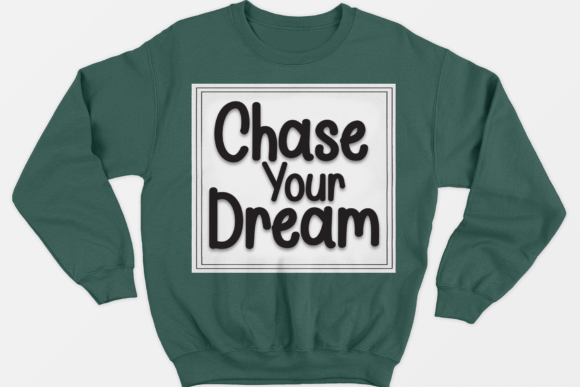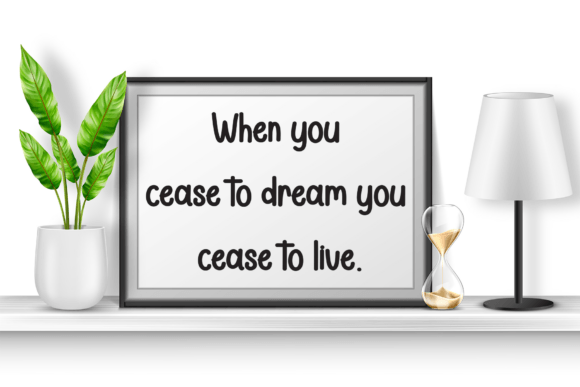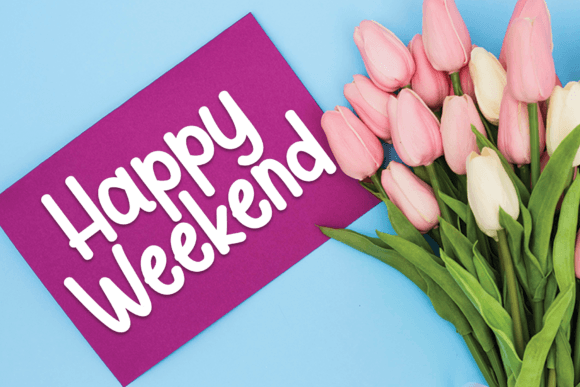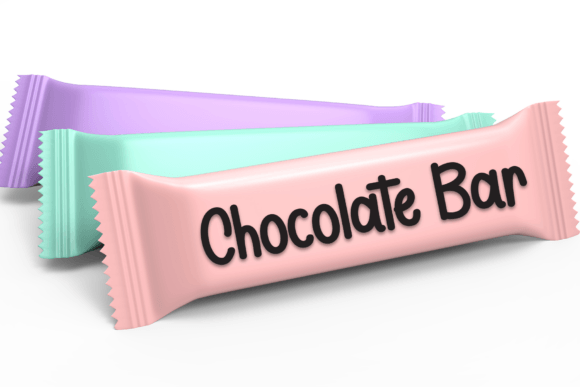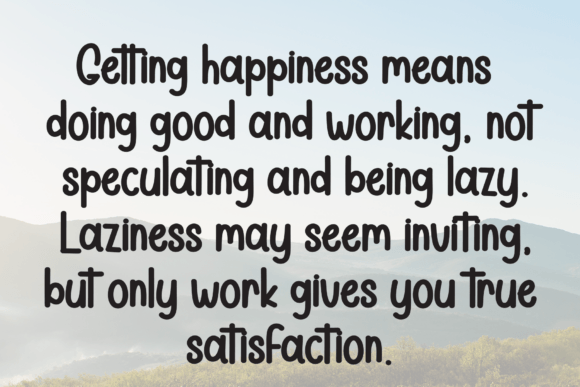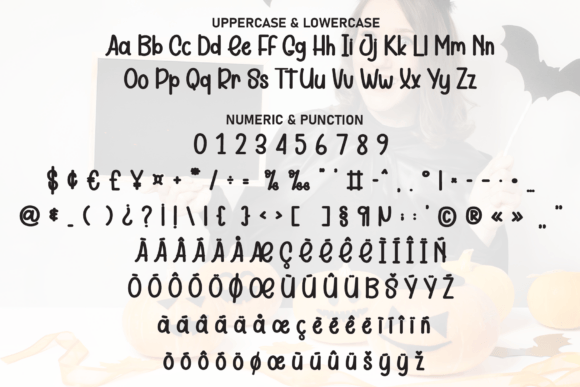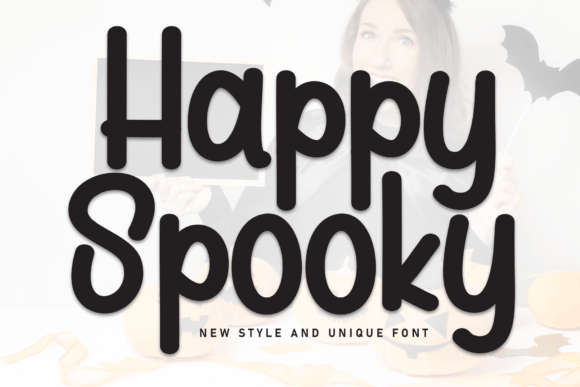
Introducing Happy Spooky Font: The Ultimate Addition to Your Design Arsenal
Are you tired of using the same old fonts for your wedding invitations, card crafting, and other creative projects? Look no further! We’re thrilled to introduce Happy Spooky Font, a charming and jovial handwritten display font that’s about to take your designs to the next level. Steeped in sweetness and friendliness, this font is the perfect addition to your design arsenal, adding a delightful touch that effortlessly personalizes and brings your creative visions to life.
The Personality of Happy Spooky Font
Happy Spooky Font is more than just a font – it’s a personality. It’s the embodiment of joy, whimsy, and playfulness, making it perfect for designers and crafters who want to add a touch of magic to their creations. This font exudes warmth and friendliness, making it an ideal choice for wedding invitations, baby shower cards, and other special occasions. With Happy Spooky Font, you can create designs that are not only visually stunning but also emotionally resonant.
Perfect for Wedding Invitations and Card Crafting
Wedding invitations and card crafting require a special kind of font – one that’s both elegant and playful. Happy Spooky Font fits the bill perfectly. Its handwritten display style adds a touch of whimsy and romance to any design, making it perfect for wedding invitations, save-the-date cards, and other wedding-related stationery. Additionally, its friendly and approachable personality makes it an excellent choice for card crafting, allowing you to create unique and personalized cards for any occasion.
Bringing Your Creative Visions to Life
Happy Spooky Font is more than just a font – it’s a tool that helps bring your creative visions to life. With its irresistibly cute and playful personality, you can create designs that are both visually stunning and emotionally resonant. Whether you’re a designer, crafter, or DIY enthusiast, this font is sure to inspire you to create something truly special. From wedding invitations to baby shower cards, and from card crafting to mixed media art, Happy Spooky Font is the perfect addition to your creative arsenal.
Key Features of Happy Spooky Font
- Handwritten display font: Happy Spooky Font is a beautiful handwritten display font that’s perfect for adding a personal touch to your designs.
- Sweet and friendly personality: This font exudes warmth and friendliness, making it perfect for wedding invitations, card crafting, and other special occasions.
- Perfect for wedding invitations and card crafting: Happy Spooky Font is specifically designed for wedding invitations and card crafting, making it an excellent choice for designers and crafters.
Tips for Using Happy Spooky Font
Here are some tips for using Happy Spooky Font in your designs:
- Pair it with other fonts: Happy Spooky Font can be paired with other fonts to create a unique and visually stunning design.
- Experiment with colors: This font looks great in a variety of colors, so don’t be afraid to experiment and find the perfect color scheme for your design.
- Add embellishments: Happy Spooky Font can be used with embellishments, such as glitter, flowers, and other graphics, to add an extra touch of whimsy to your design.
- Use it for headlines and titles: This font is perfect for headlines and titles, adding a touch of personality and whimsy to your design.
In conclusion, Happy Spooky Font is a charming and jovial handwritten display font that’s perfect for designers and crafters who want to add a touch of magic to their creations. With its sweet and friendly personality, this font is ideal for wedding invitations, card crafting, and other special occasions. Whether you’re a seasoned designer or a DIY enthusiast, Happy Spooky Font is sure to inspire you to create something truly special. So why wait? Download Happy Spooky Font today and start bringing your creative visions to life!